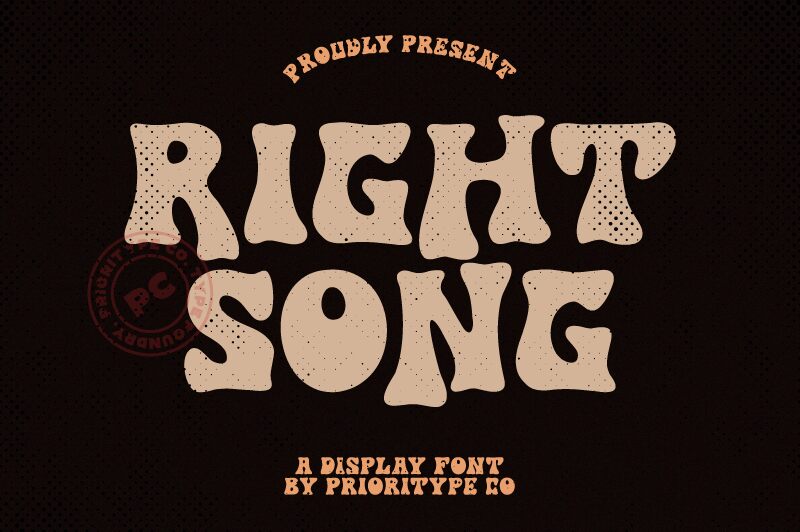
Right Song is an electrifying display font by Prioritype Co. With its groovy and vibrant style, this extra-bold typeface is perfect for a variety of creative projects. Let your designs dance with energy and excitement by using Right Song for music posters, album covers, party invitations, or even retro-themed branding campaigns.
Its bold strokes and funky curves will add a touch of nostalgia while making a bold statement. Get ready to groove to the beat of Right Song and bring your projects to life with its dynamic and captivating presence.